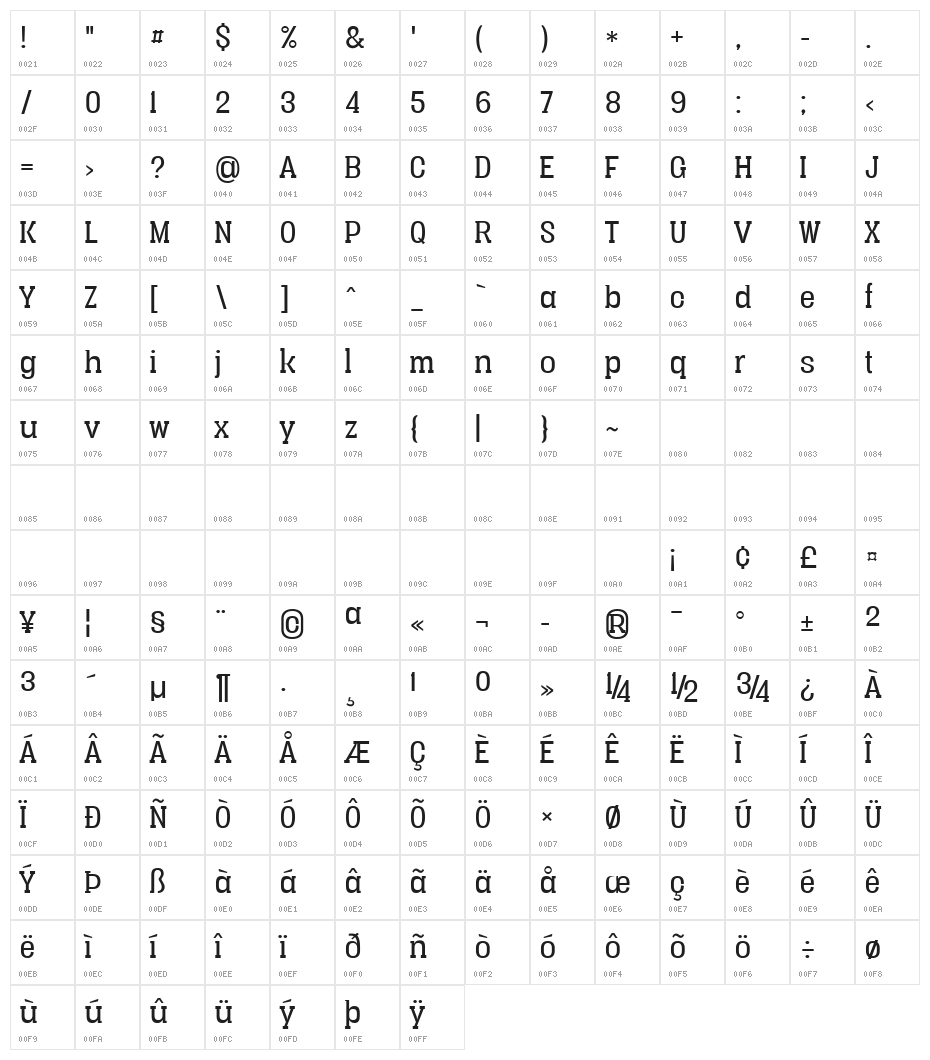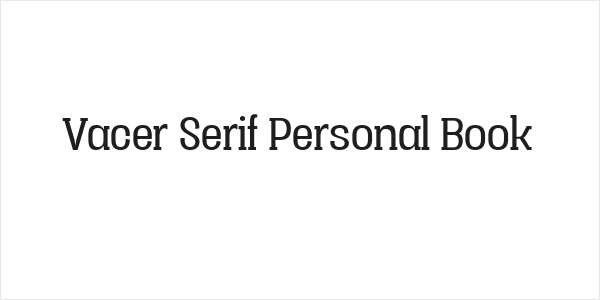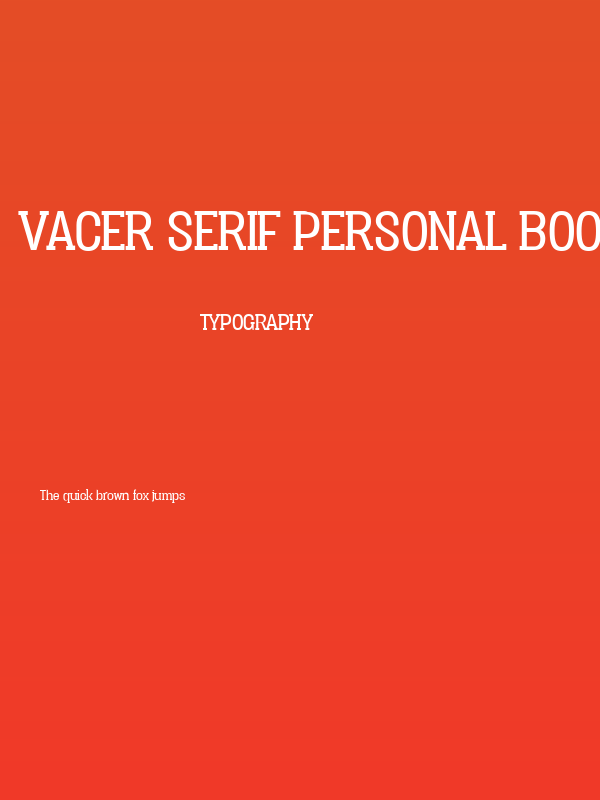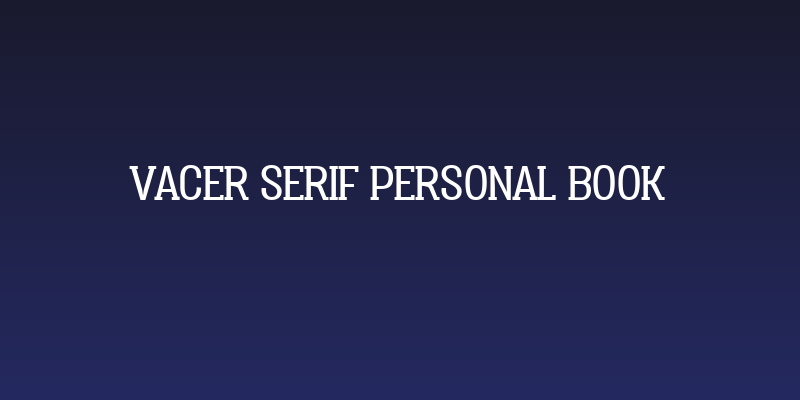
Vacer Serif Personal Book Font
Vacer Serif Personal Book Description
This font features a classic serif design with a modern twist. The characters are well-defined with a slight contrast in stroke thickness, giving it a refined and elegant appearance. The uppercase letters are bold and commanding, while the lowercase letters maintain a balanced and readable form. The numerals are clear and consistent, making them suitable for various applications. Special characters are included, adding versatility to the font's use. The overall style is both timeless and contemporary, making it adaptable for different design needs.
| Proposed Projects | Ideal for editorial design, branding, book covers, and formal invitations. |